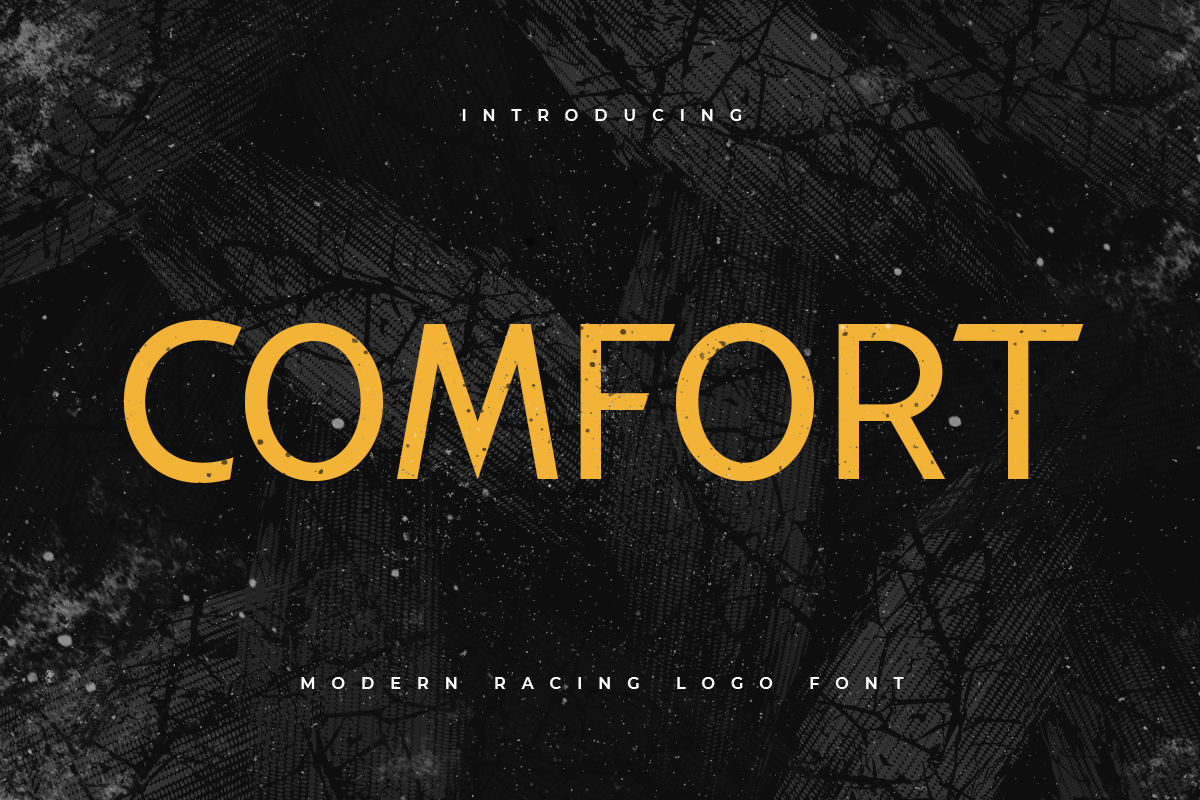
Comfort - Modern Racing Logo Font
Comfort delivers bold, modern racing typography designed to make your sports and action brands stand out. This contemporary sans serif font captures the speed and intensity of racing culture, making it the perfect choice for sport branding, dynamic titles, and high-impact headlines. Whether you're designing for technology, action sports, or competitive gaming themes, Comfort brings a bold action style with modern appeal that amplifies your main message. The typeface features carefully crafted ch...